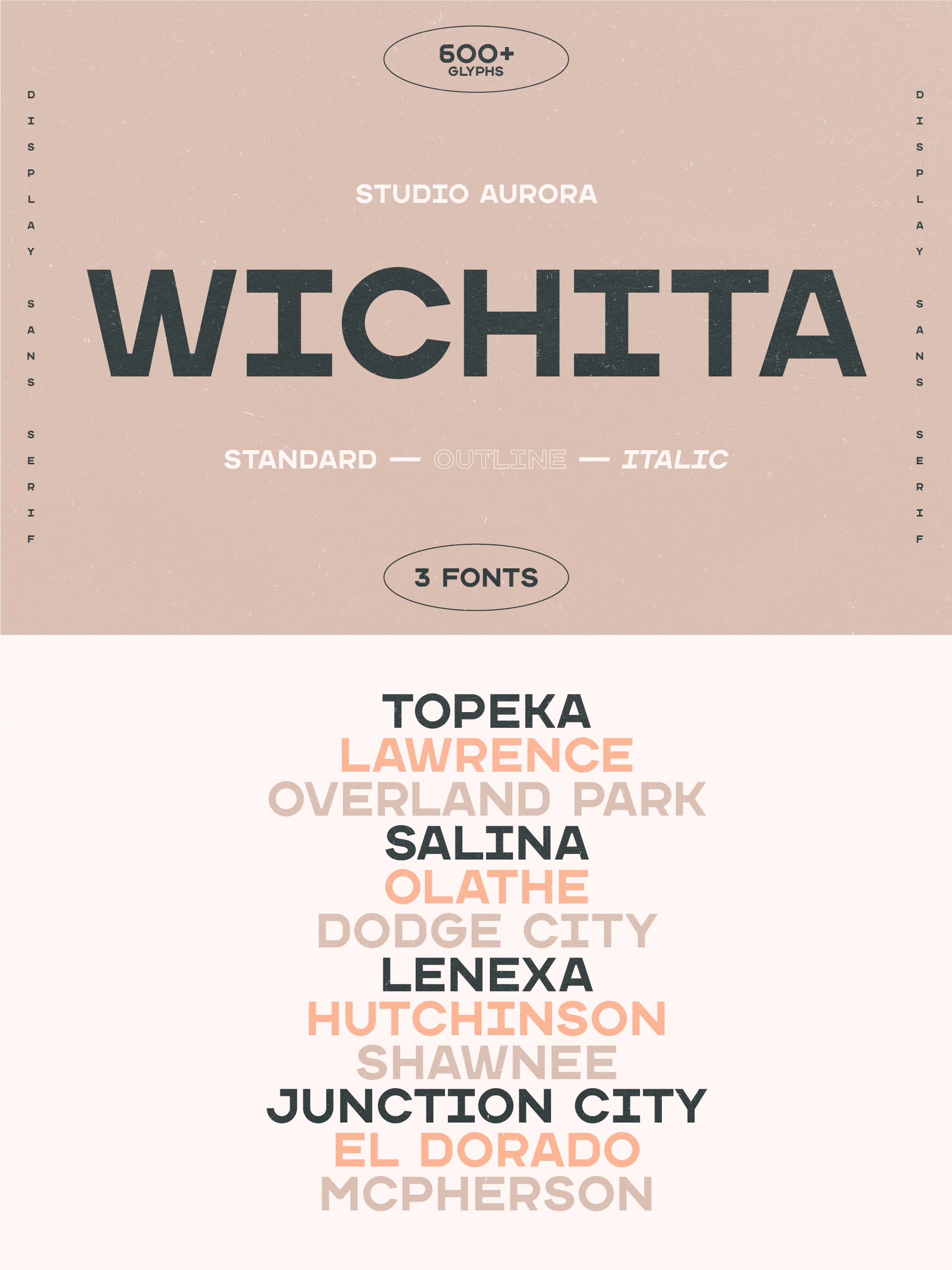
Wichita – Display Sans Serif Font
Introducing our new typeface, Witchita - A bold, blocky, display sans-serif typeface.
This is a display serif font that we recommend using in the following types of work; magazines (titles and layouts), logos and branding, invitations, quotes, blog headers, posters, advertising, and body copy.
It's multilingual with language support for: Afrikaans, Albanian, Catalan, Danish, Dutch, English, French, German, Italian Norwegian, Portuguese, Spanish, Swedish and Zulu.
- Uppercase glyphs